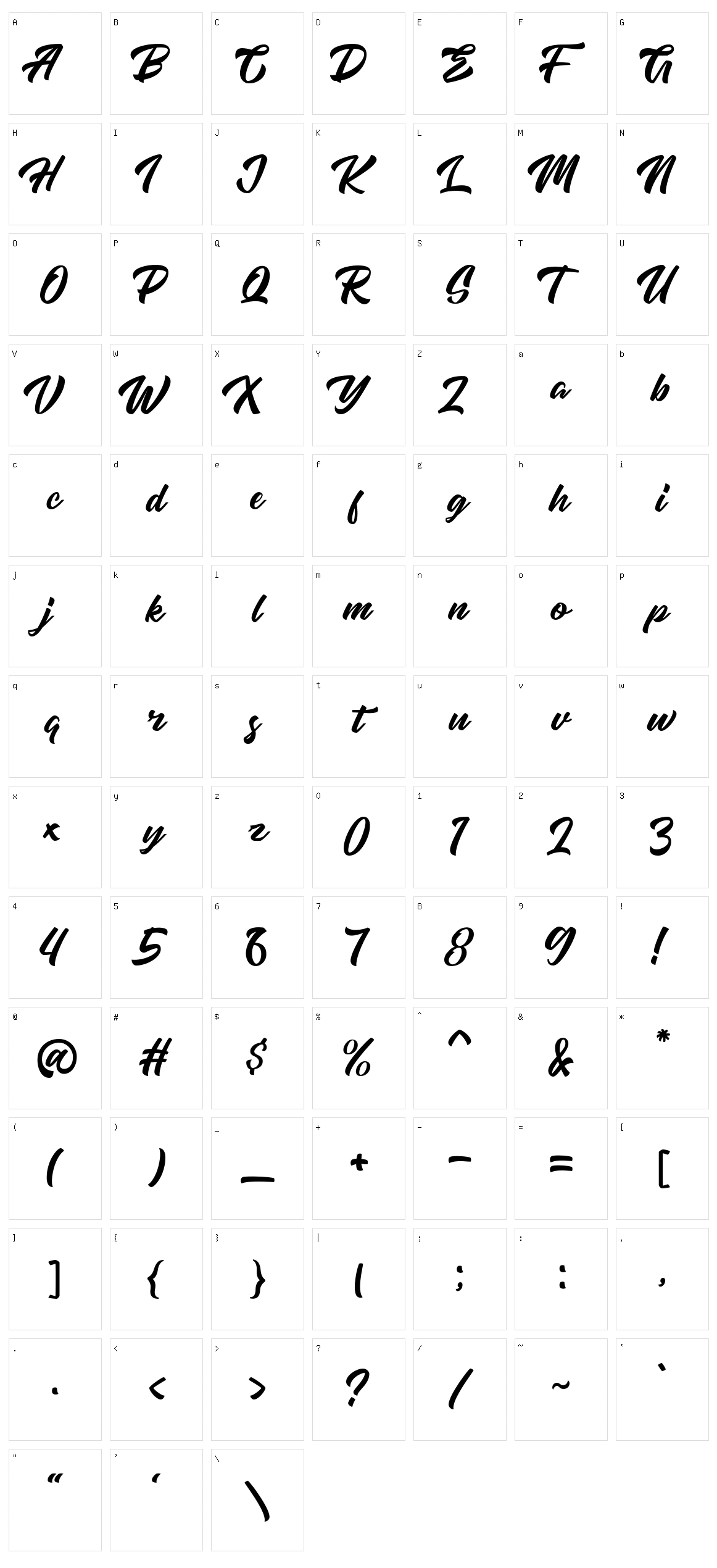
The free font High Amelliya is carefully designed by Ahmad Khaidir, showcasing a thoughtful balance of creativity and usability and falls under the Script font style. When you download the ZIP file, it contains only 43.55 KB of font files, making it lightweight and quick to download. Please review the license details below to understand permitted usage and distribution rights. If license information is not available, we recommend using this font for personal projects only or contacting the author directly for commercial usage permissions.